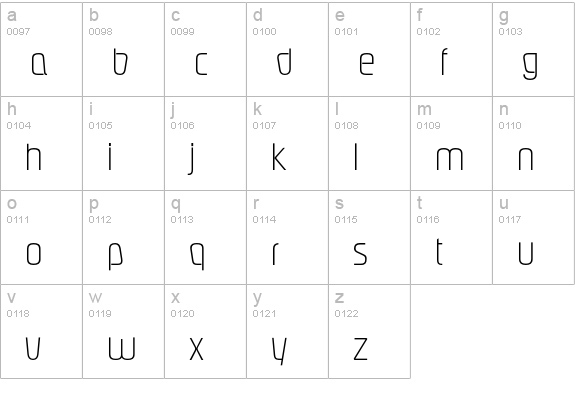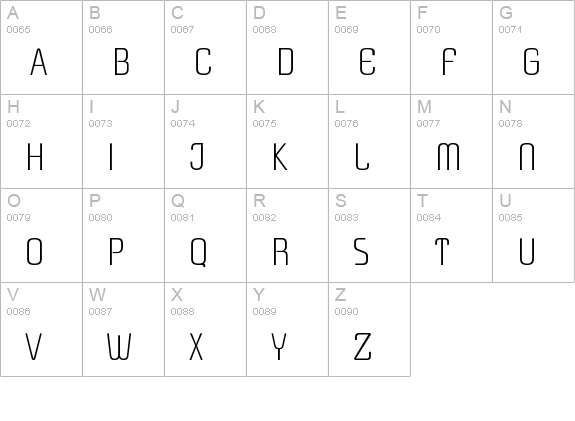
Pasadena-ExtLgt Font Details
Pasadena-ExtLgt is a stunning font that exudes elegance and sophistication. Its sleek and modern design is perfect for adding a touch of class to any project. This font features elongated letterforms with sharp edges, creating a sense of refinement and professionalism. With its extended light weight, Pasadena-ExtLgt is ideal for creating headlines, titles, and logos that demand attention. It brings a sense of balance and harmony to any design, making it versatile for both print and digital applications. One of the best things about Pasadena-ExtLgt is that it is absolutely free! You can freely download this font at FontsMarket.com, where it is available in a variety of file formats, ensuring compatibility with your preferred design software. Whether you are working on a branding project, a magazine layout, or a website design, Pasadena-ExtLgt will elevate your work to new heights. Its clean lines and exquisite details make it a go-to choice for designers who seek a font that is both stylish and professional. Don't miss out on the opportunity to add Pasadena-ExtLgt to your font collection. Download it for free at FontsMarket.com and unlock a world of endless design possibilities.